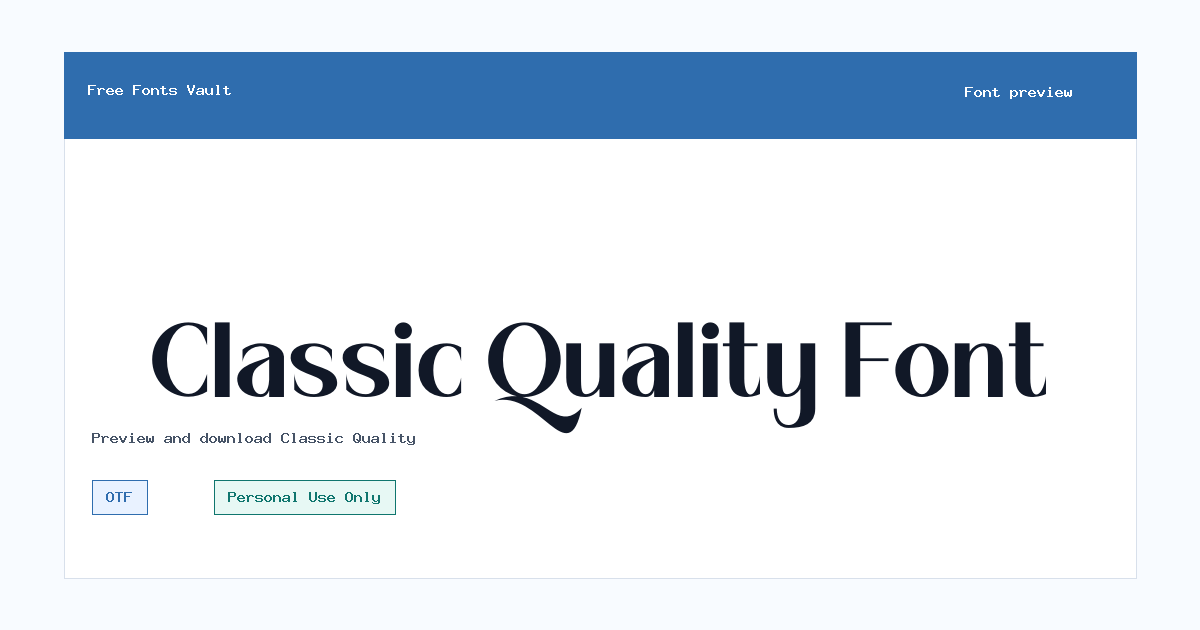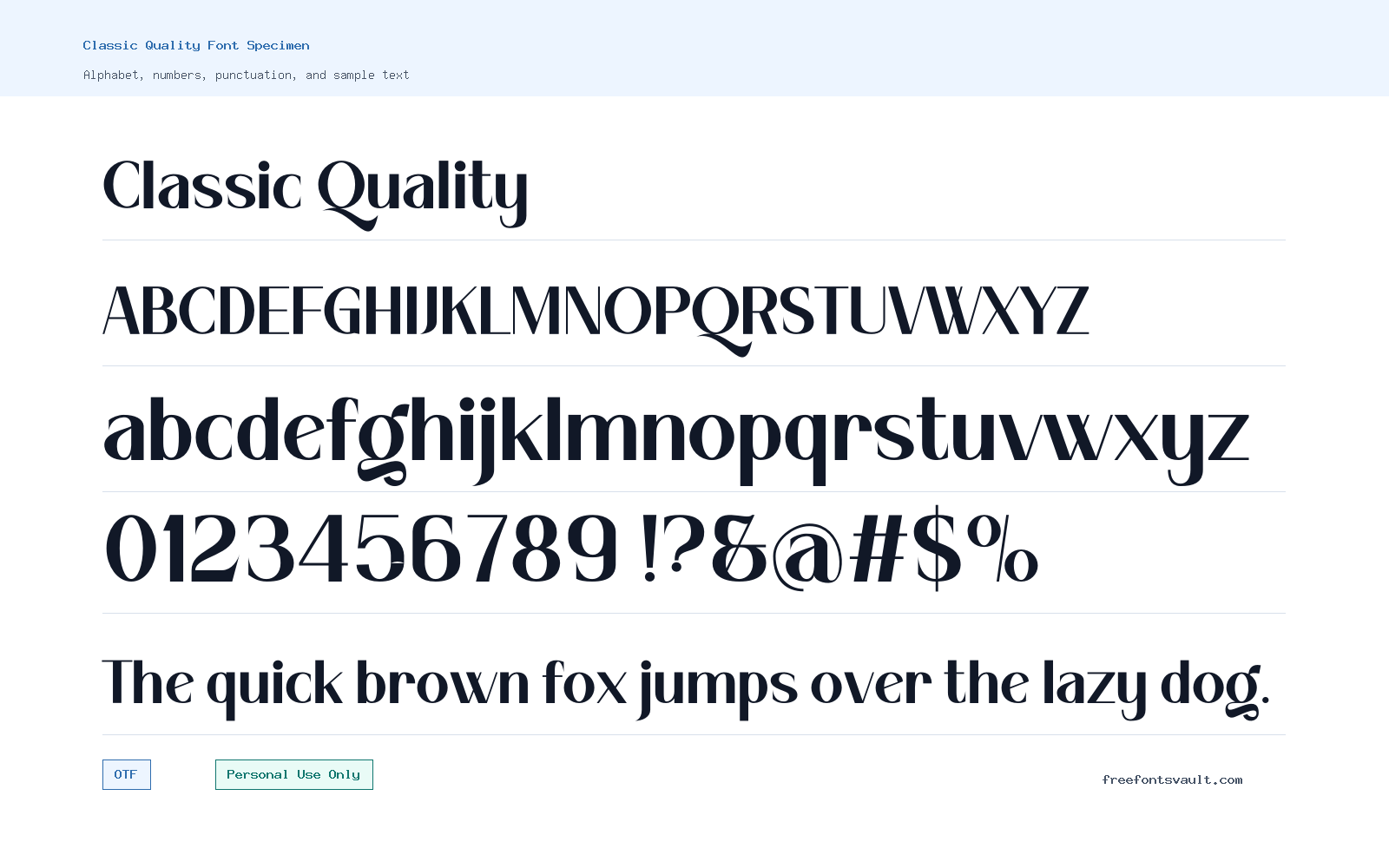
Classic Quality
- Designer Masyafi Studio
- Foundry Masyafi Studio
Classic Quality is a bold, classy sans serif font with a polished display feel. It is best tested in short words, headings, brand mockups, poster text, and clean visual layouts where the letter shapes can stand out.
Classic Quality works as a display-first sans serif rather than a long-reading text face. Its style is suited to names, labels, titles, social graphics, packaging concepts, fashion-style layouts, and other places where a short line of type needs a confident look. The font is associated with modern, bold, logo, elegant, classy, editorial, fashion, luxury, and minimalist style tags, so it makes the most sense for refined headline use instead of body copy.
- Good fit for short headlines, logo drafts, editorial titles, packaging concepts, and social media graphics
- Personal branding mockups, fashion-style layouts, poster titles, product label concepts, and clean display typography
- Testing logo ideas, web hero mockups, Pinterest graphics, album-art concepts, and other short-text design uses
Masyafi Studio is the named foundry for Classic Quality. A public font listing also credits Letterayu & Masyafi Studio, so attribution should be checked if you need exact designer credit.
For design work, start with short words and generous spacing. Pair Classic Quality with a plain neutral sans serif for descriptions, navigation, captions, or body text so the display font stays as the visual focus. If you use it in a logo concept or website mockup, treat that as a draft until the proper commercial or logo license is confirmed.
What kind of designs suit Classic Quality?
It suits short display text such as headings, brand-name mockups, posters, labels, fashion-style graphics, and clean social media designs.
Is Classic Quality good for paragraphs?
It is better for display use. For paragraphs or long descriptions, pair it with a simpler reading font and keep Classic Quality for titles or accents.
Who made Classic Quality?
The font is connected with Masyafi Studio. One public listing credits Letterayu & Masyafi Studio, so exact attribution may need confirmation from the creator’s purchase or download page.